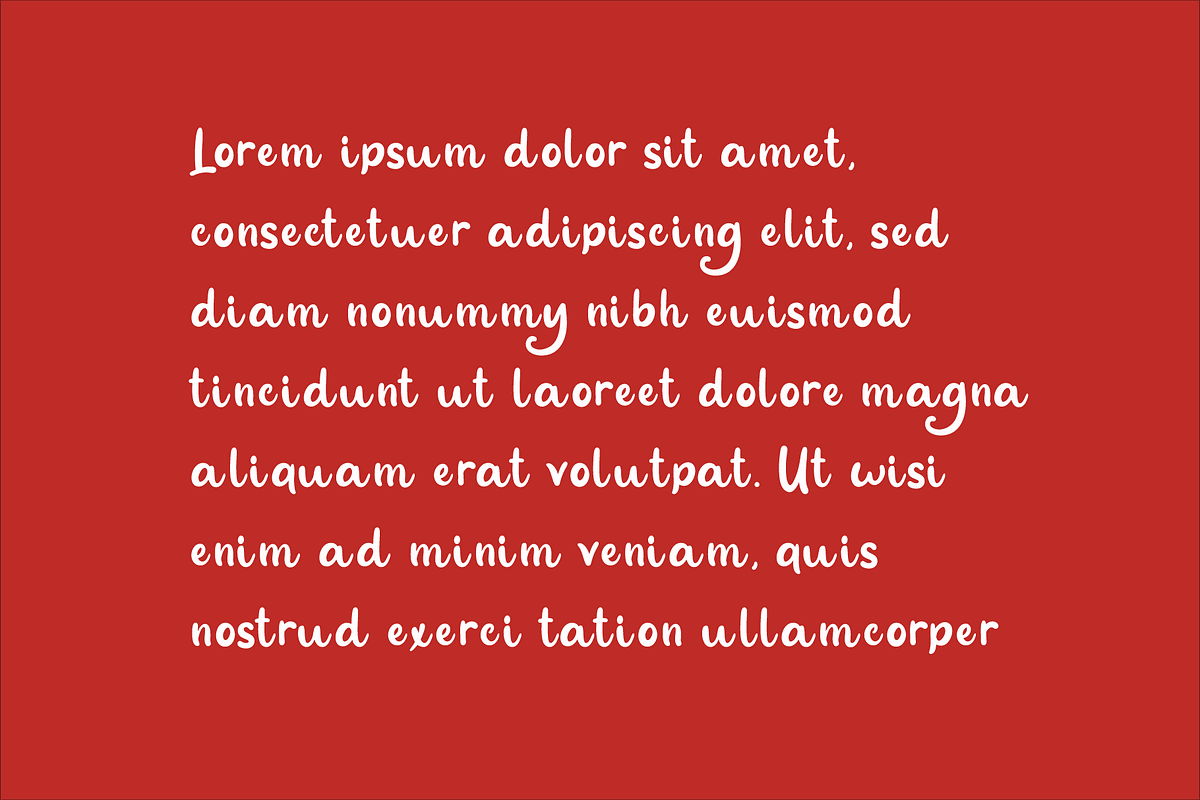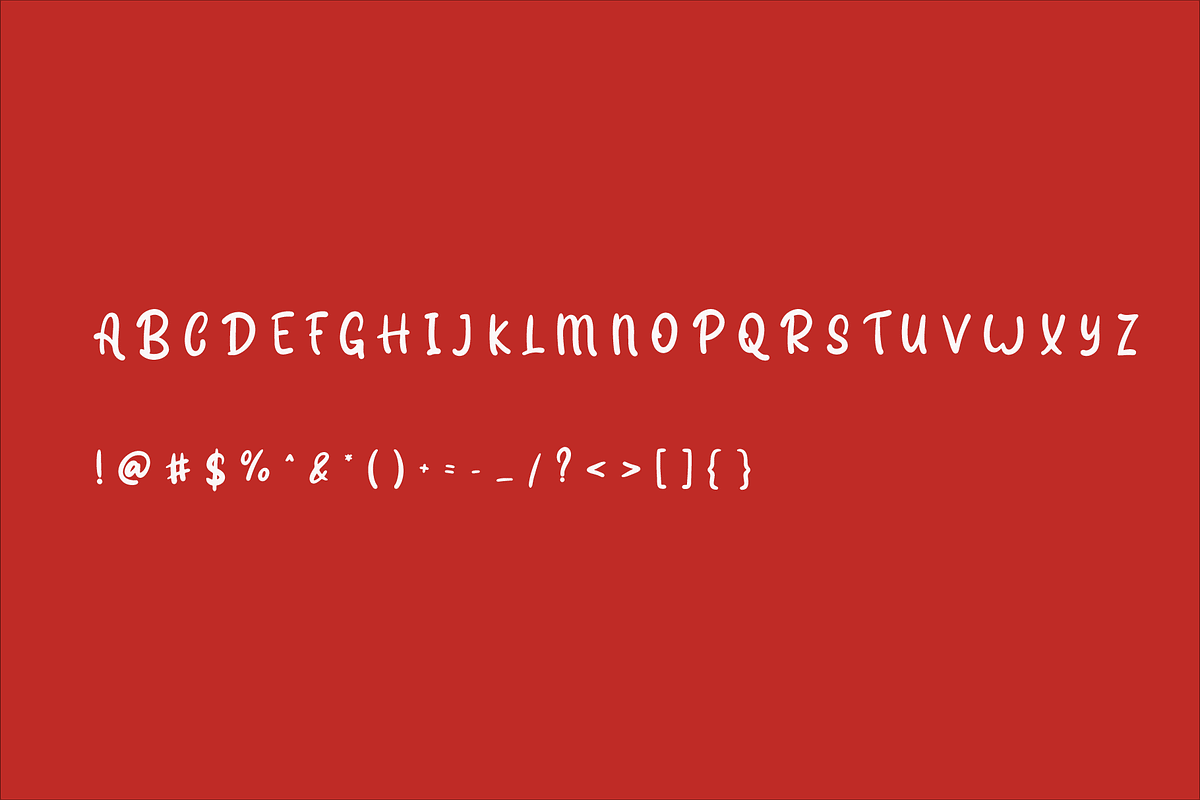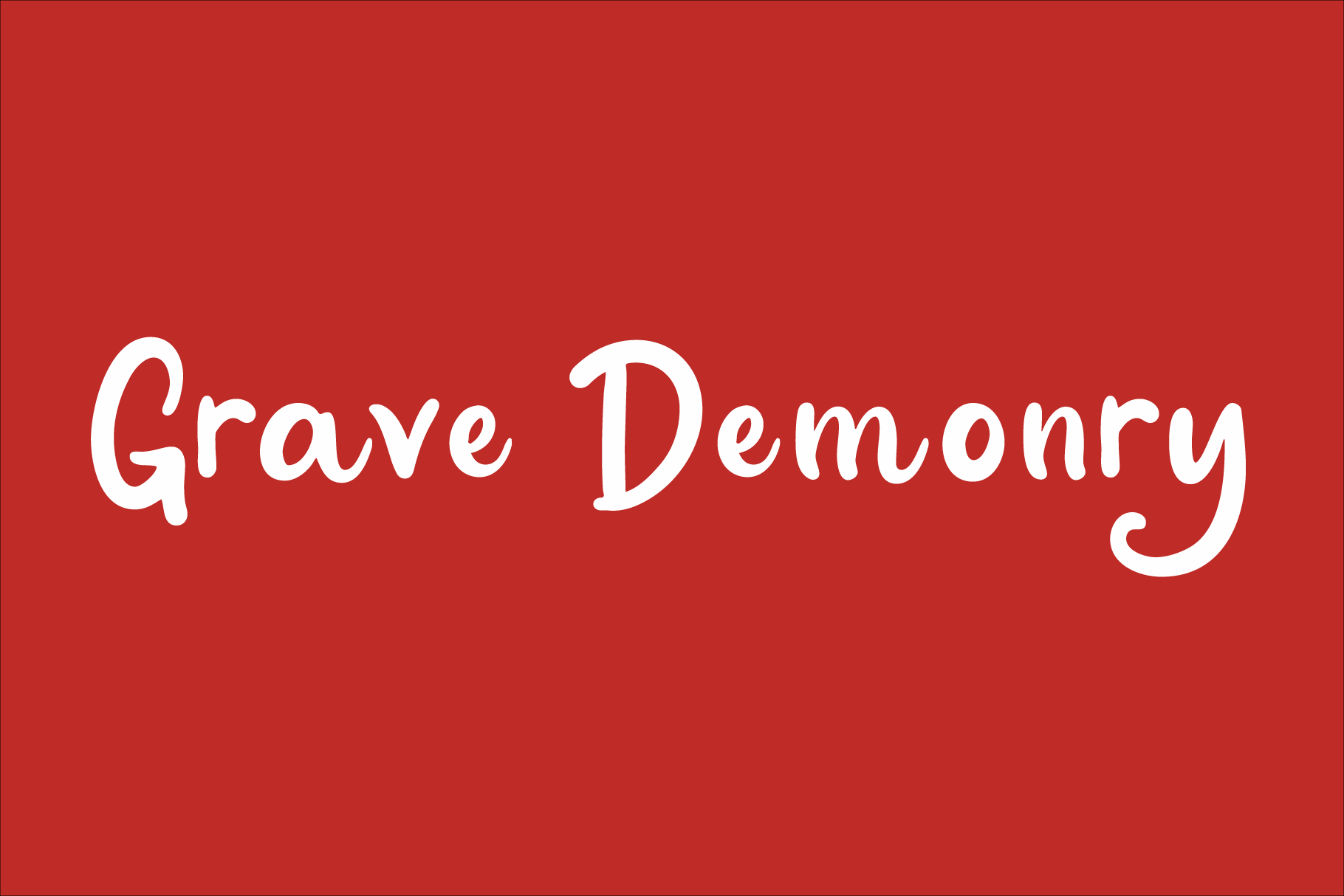
Halloween Font - Grave Demonry
Grave Demonry is a playful yet spooky Halloween font designed to bring eerie charm to your seasonal projects. Featuring bold rounded letters with decorative bat wings and devil tails, this typeface offers three stylistic alternates that make your design more versatile and fun. Perfectly crafted for titles, invitations, posters, and social media graphics, Grave Demonry gives your design the perfect mix of creepy and cute. Add a unique spooky vibe to your Halloween celebration with this versatile display font!
Perfect for: _ Halloween party invitations, horror movie or event posters, seasonal social media content, spooky quotes and greeting cards, branding on Halloween-themed products, ._Perfect for packaging, flyers, and digital banners